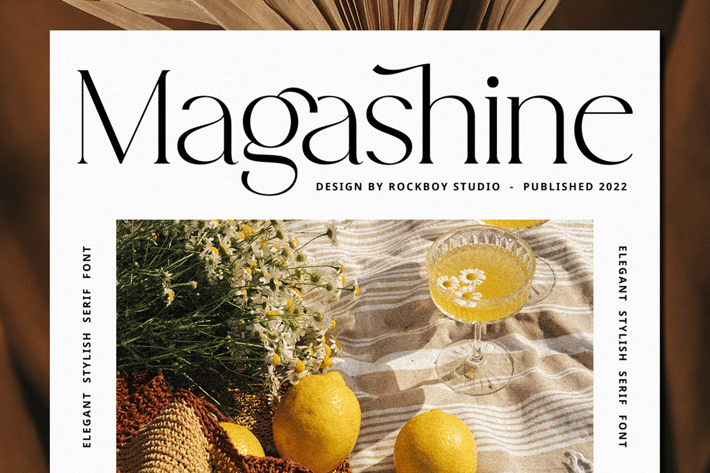
Magashine - Advertisement Font
Magashine is a distinct, elegant and authentic serif font. Masterfully designed to become a true favorite, this font has the potential to bring each of your creative ideas to the highest level!